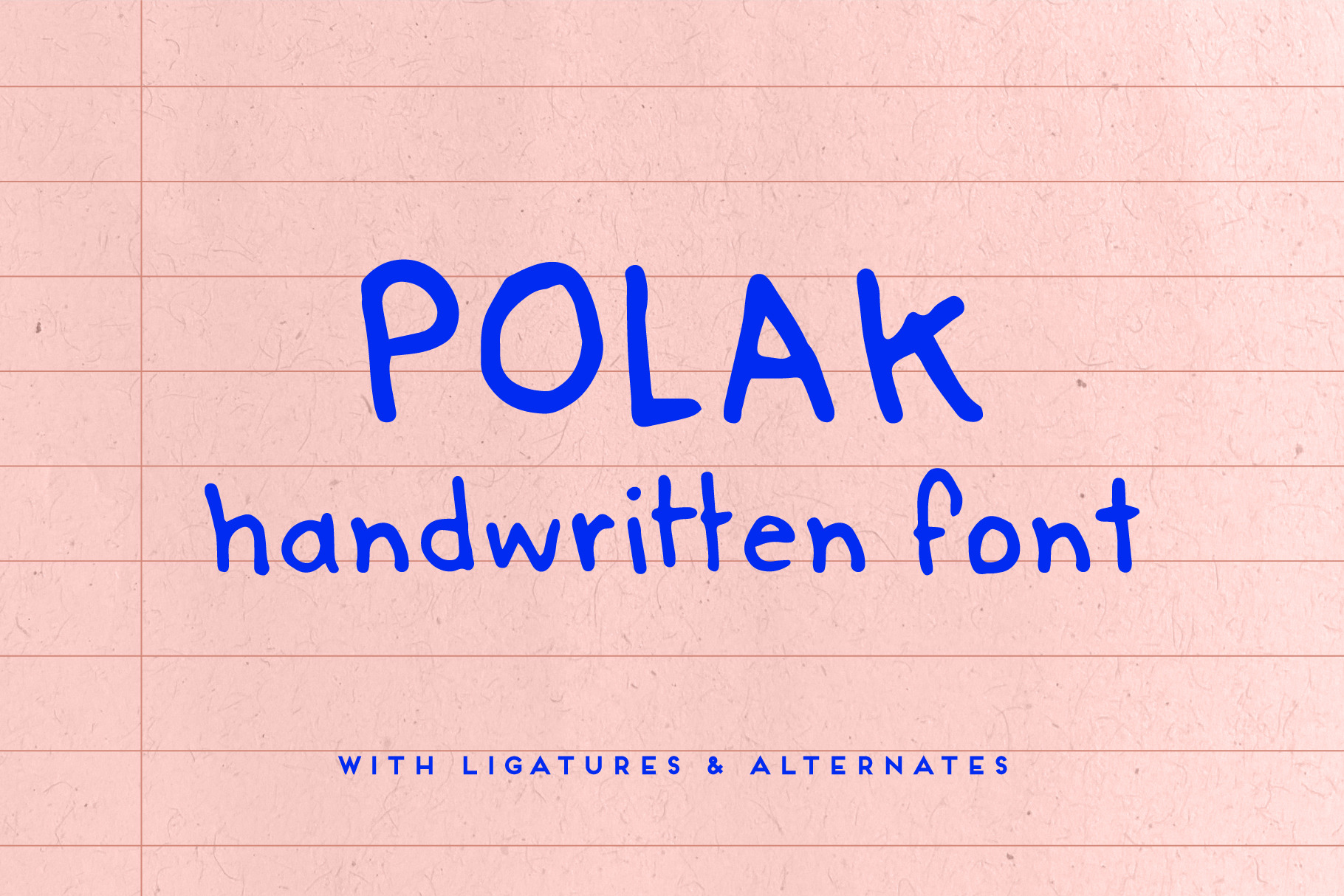
Polak Comic Handwritten Font
Polak is a casual, friendly, hand-drawn font with multilingual support. It's ideal for comic drawings, greeting cards, children books and modern whimsical designs.
This handwritten font comes with alternates and open type ligatures.